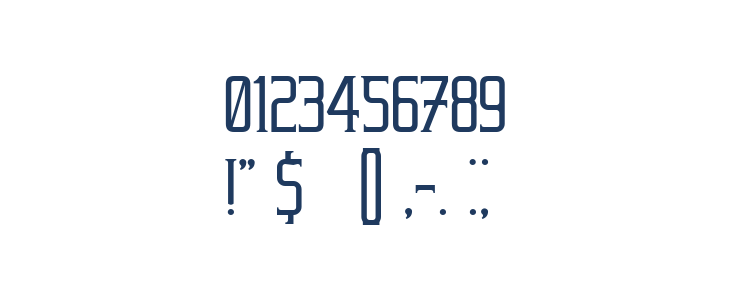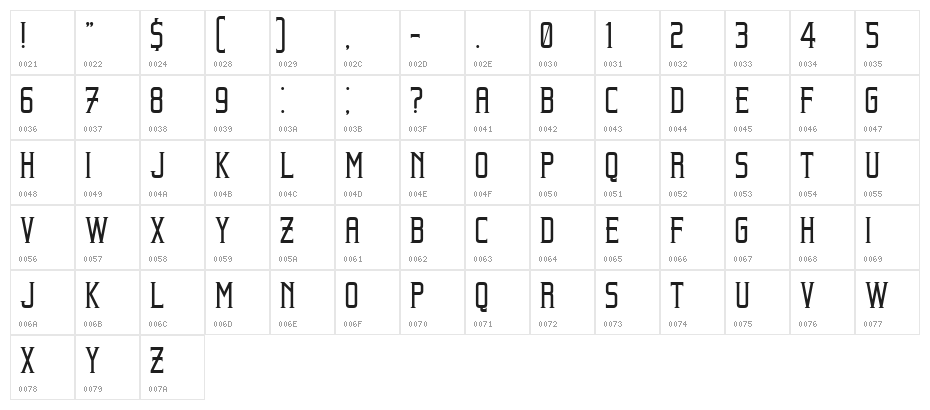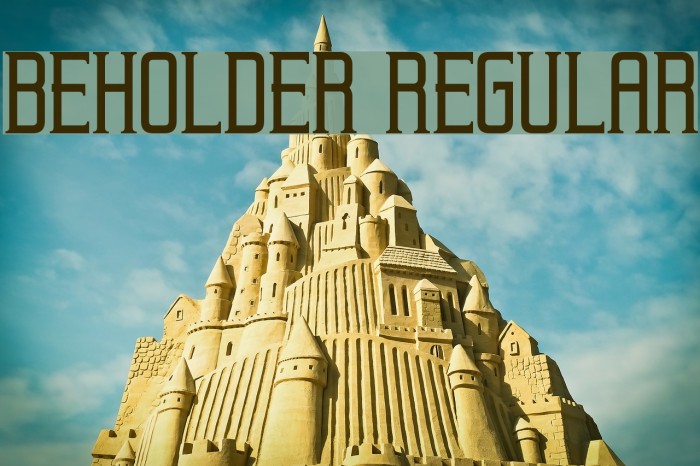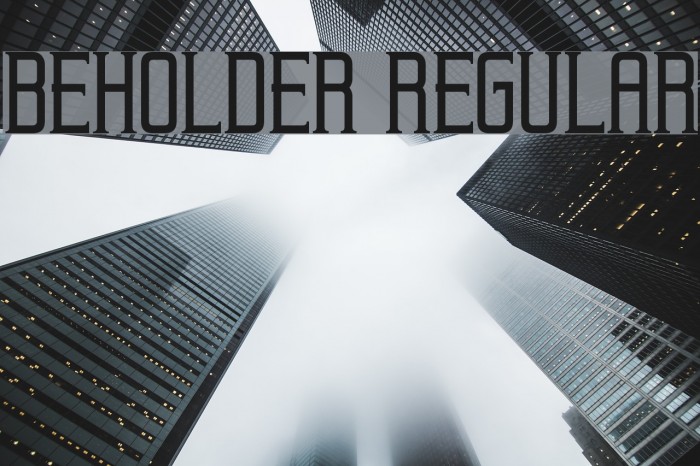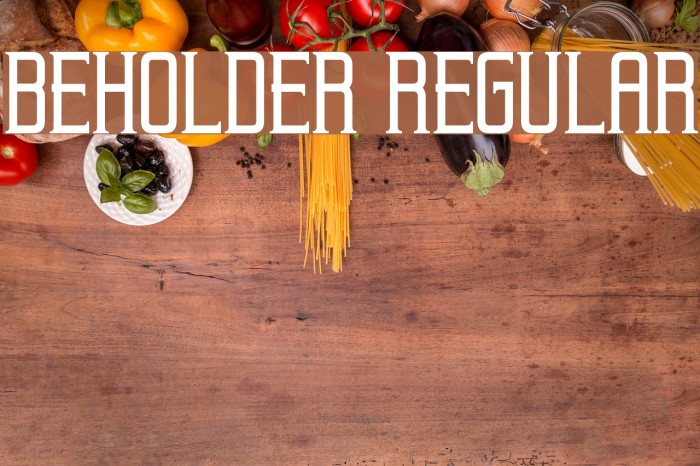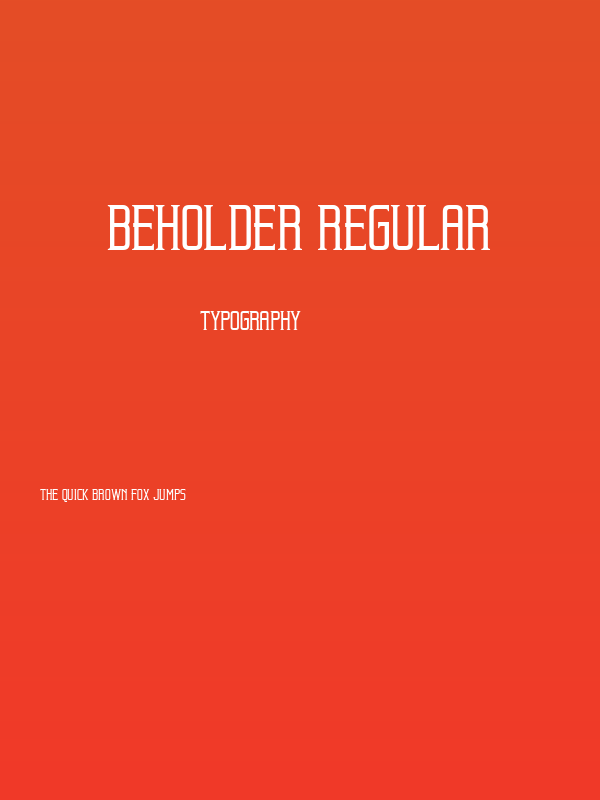
Beholder Regular Font
Beholder Regular Description
This font features a unique blend of modern and vintage elements, characterized by its tall, narrow letterforms and distinct geometric shapes. The uppercase letters are particularly striking, with sharp angles and a consistent stroke width that conveys a sense of precision and elegance. The lowercase letters maintain the same geometric style, ensuring readability while adding a touch of sophistication. Numerals are clear and well-defined, making them suitable for various applications. Special characters are thoughtfully designed, complementing the overall aesthetic of the font. This typeface is versatile, offering a clean and professional look suitable for both digital and print media.
| Use Case | Headlines, Logos, Editorial design |
| Proposed Projects | Ideal for branding, editorial design, posters, and web design projects. |